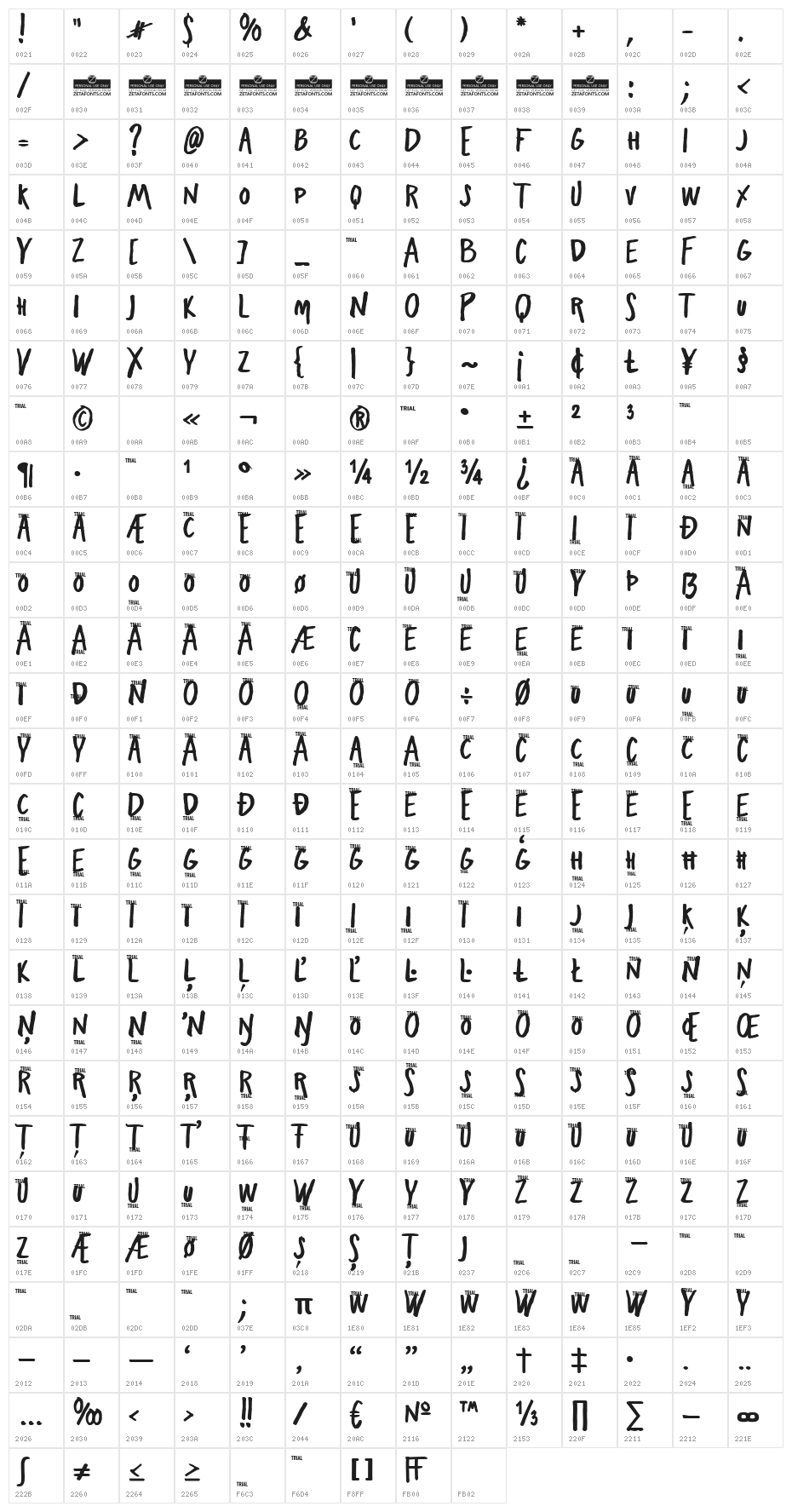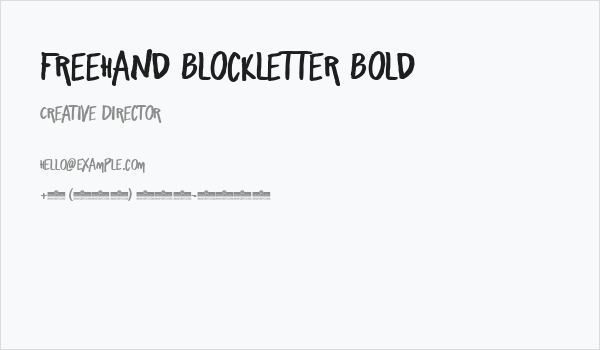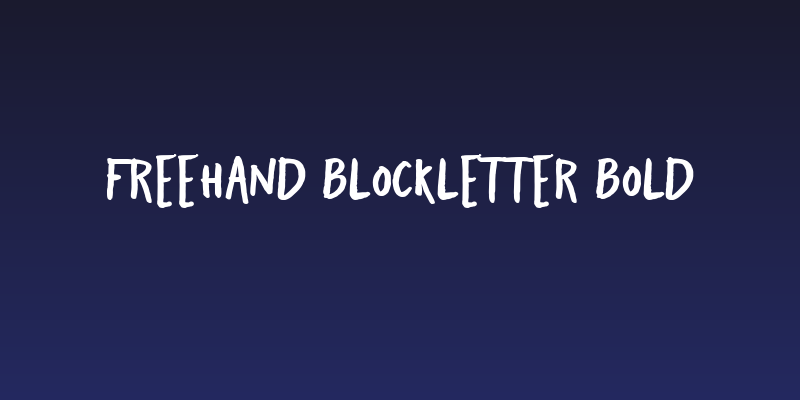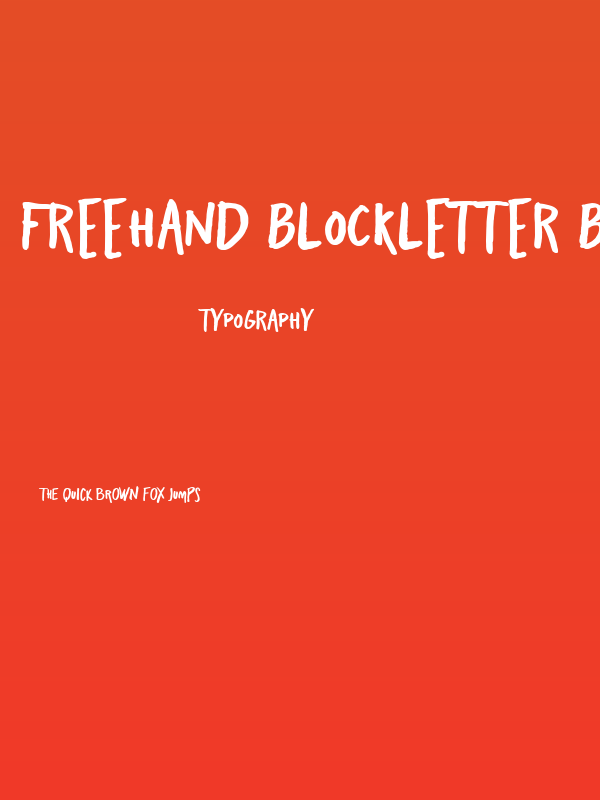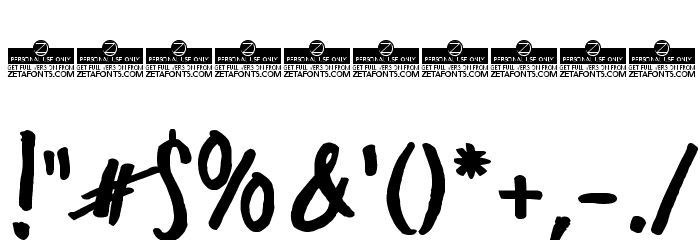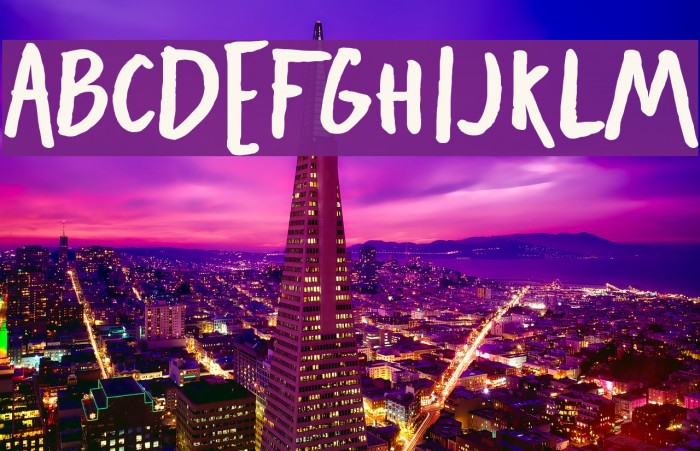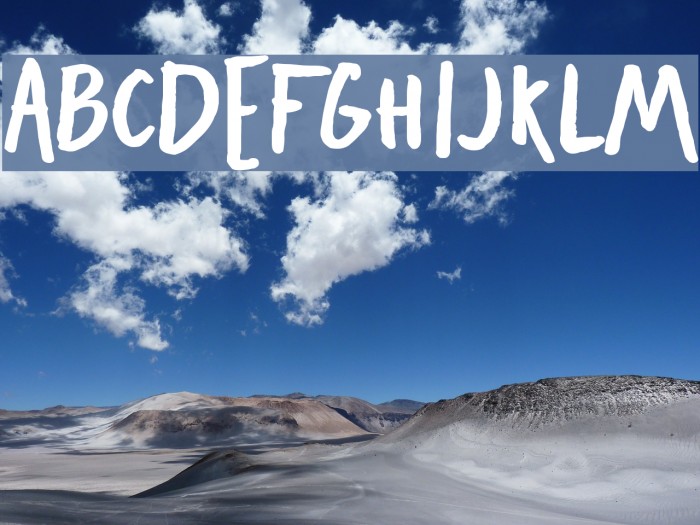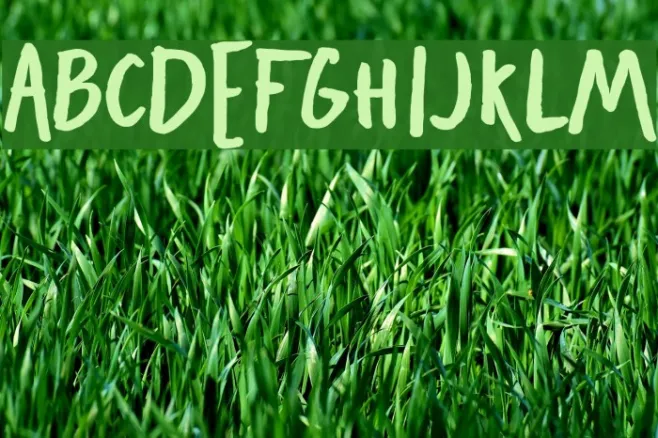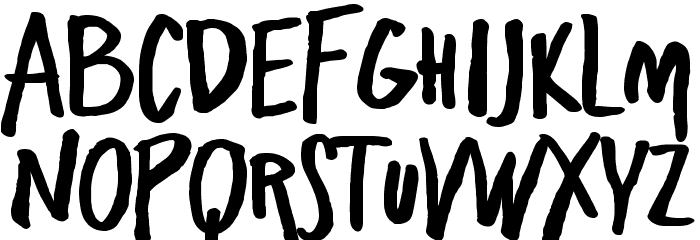
Freehand Blockletter Bold Font
Freehand Blockletter Bold Description
This font features a bold, freehand style that mimics the look of hand-drawn block letters. The characters are thick and slightly irregular, giving them a casual and artistic appearance. The uppercase and lowercase letters maintain a consistent weight, providing a cohesive look across the alphabet. The numbers and special characters follow the same bold and expressive style, making them stand out. This font's unique and playful design is perfect for projects that require a personal touch or a creative flair.
| Proposed Projects | Ideal for posters, greeting cards, branding projects, and any design that benefits from a personal, handmade feel. |